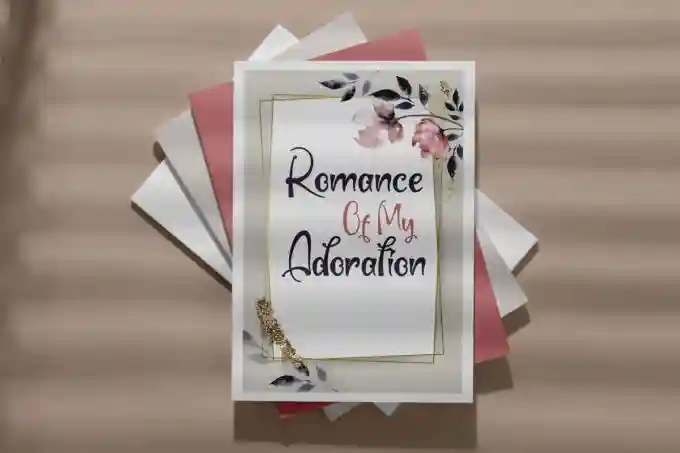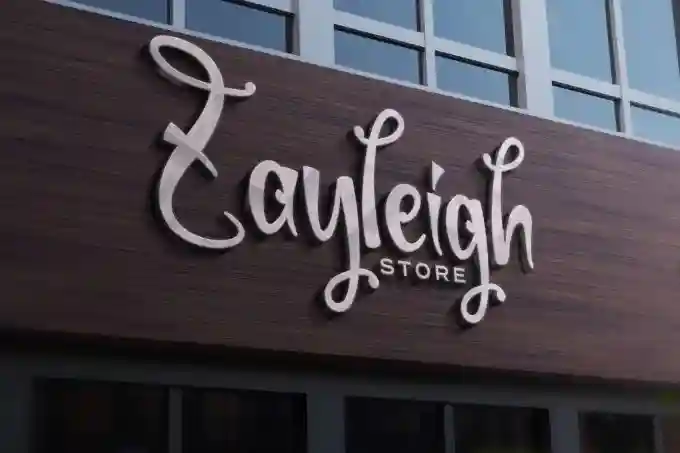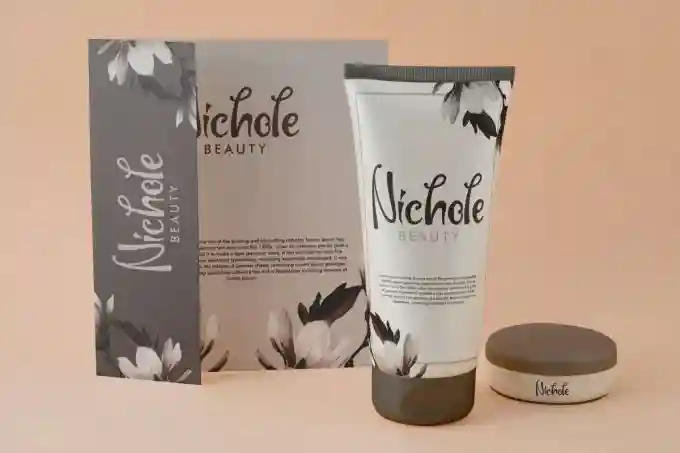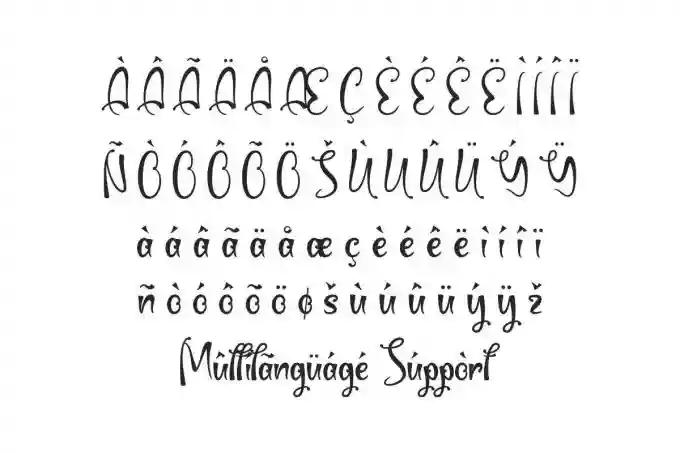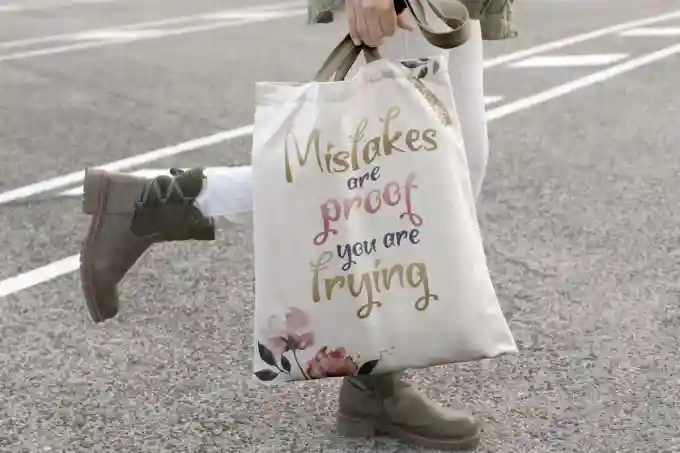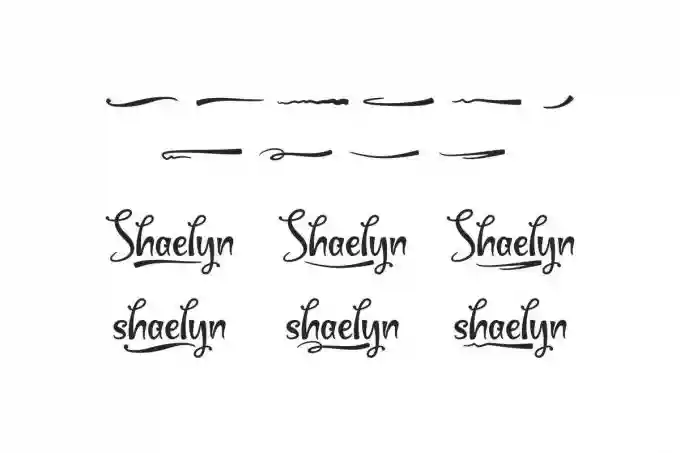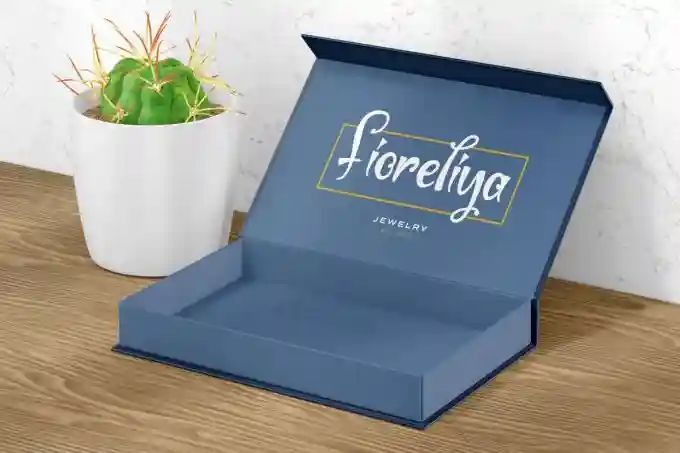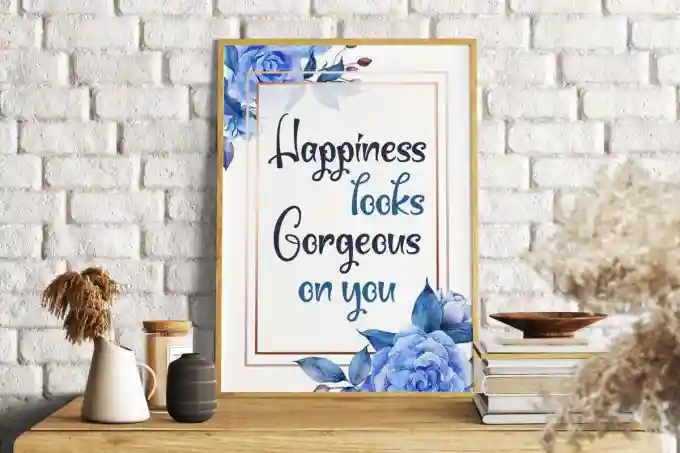
Shaelyn Font is a beautiful unique display font with handwriting style, created by VinType Studio. Once you see this, you will be in a better mood because the characters in this font are very playful with unique waving lines. This font will be suitable for many industries, such as advertisement, art, café, fashion, handicrafts, jewelry, publishing, spa salon, and more!
Shaelyn Font includes full set of Characters, Numerals and Punctuation. Also it contains swoosh character to make it catchy and add more aesthetic fonts to your extraordinary project, such as brand logo, box jewelry, brochure, frame art, packaging design, quotes, screen printing, signage, stationery, website, etc.
Shaelyn Font supports multilingual languages (including multiple currency symbols). With a simple installation, it will be ready to use both on Windows machine or Mac. It really common works in almost any software (Character Map for Windows and Font Book for Mac). It work well on Adobe software such as Illustrator, Photoshop and several other software.